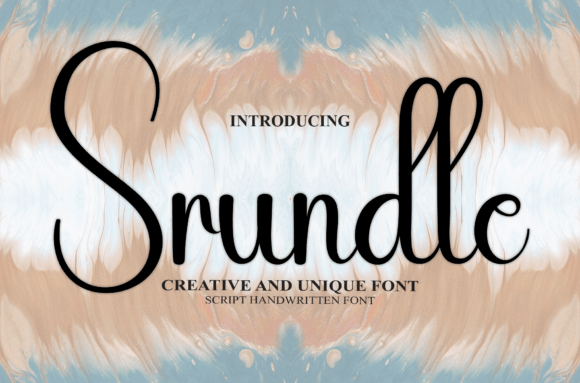
Welcome to the world of Srundle Font, a captivating script typeface that will add a touch of charm and personality to your creative projects. Immerse yourself in the beauty of Srundle's elegantly flowing strokes and discover the endless possibilities it holds for expressing your unique style.
Crafted with precision by the talented William Jhody, Srundle is more than just a font; it's an artistic masterpiece. Its meticulously designed characters dance across the page, exuding a playful and joyful spirit that will leave you captivated. Whether you're a seasoned designer or just starting your creative journey, Srundle is the perfect companion for adding a personal touch to your work.
Step into the realm of fashion and let Srundle guide you towards creating captivating blog posts that resonate with your audience. Its whimsical style adds a touch of allure to your words, capturing readers' attention and drawing them into your fashion tales. With Srundle, your blog will stand out from the crowd, embodying a sense of elegance and creativity that will leave your readers craving more.
Srundle's versatility knows no bounds, effortlessly adapting to various design projects. Enchant your wedding invitations with a touch of romance, making them a cherished memento of your special day. Create heartfelt cards that express your deepest emotions, leaving a lasting impression on those who receive them. Unleash your imagination and explore the world of design, transforming your ideas into stunning visual masterpieces with Srundle as your creative ally.
Embrace the beauty of Srundle Font and embark on a journey of creative exploration. Its undeniable charm will elevate your designs to new heights, captivating hearts and igniting imaginations. Experience the joy of creating with Srundle today and let your creativity flourish.